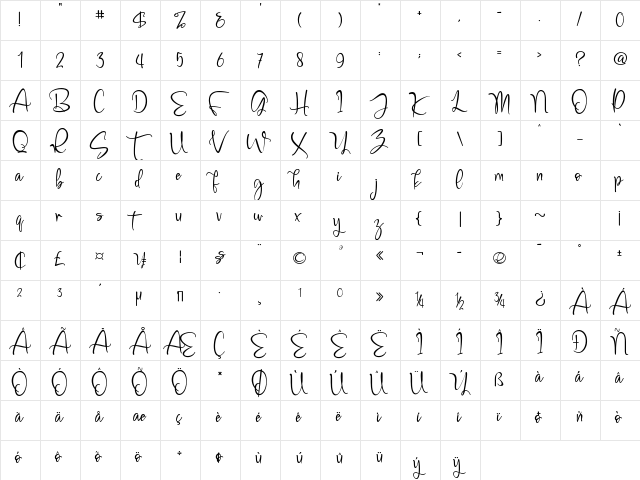
Millena Regular
Design Context for Millena Typeface
Millena is a composed and adaptable typeface that performs quietly and consistently across a wide range of design contexts.